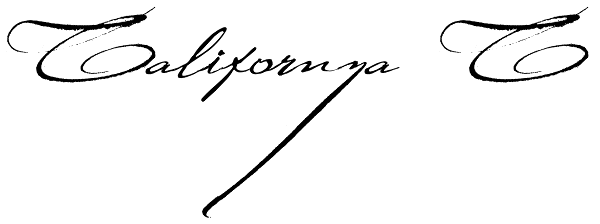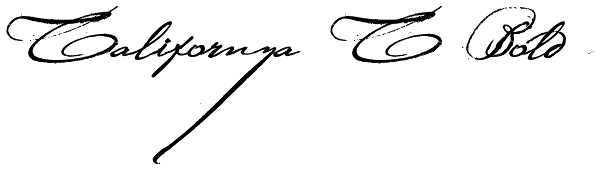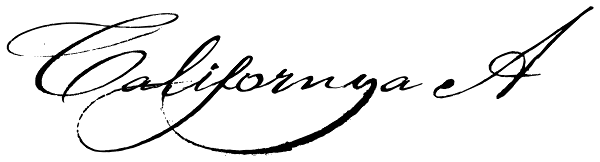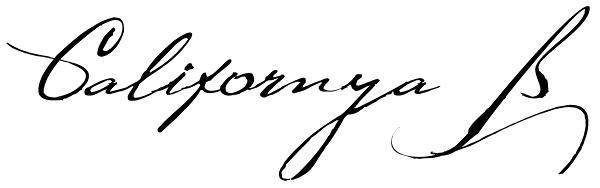
Californya
Californya is based on several manuscripts from 16th century, and completely reinterpreted with a vast series of characters drawn by hand. Each character is full of rich details, capturing the expression and style of a true calligraphy. It will add...